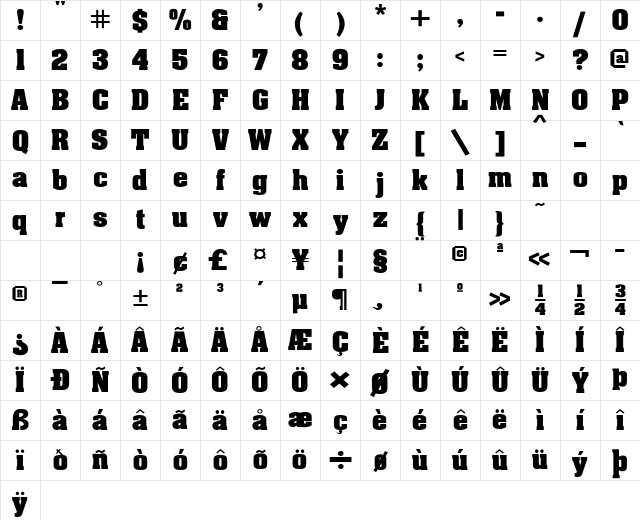
AardvarkBold Regular Free Font
AardvarkBold Regular
Design Context for AardvarkBold
AardvarkBold is a composed and adaptable typeface that performs quietly and consistently across a wide range of design contexts. Its bold stroke weight gives it real presence on the page.